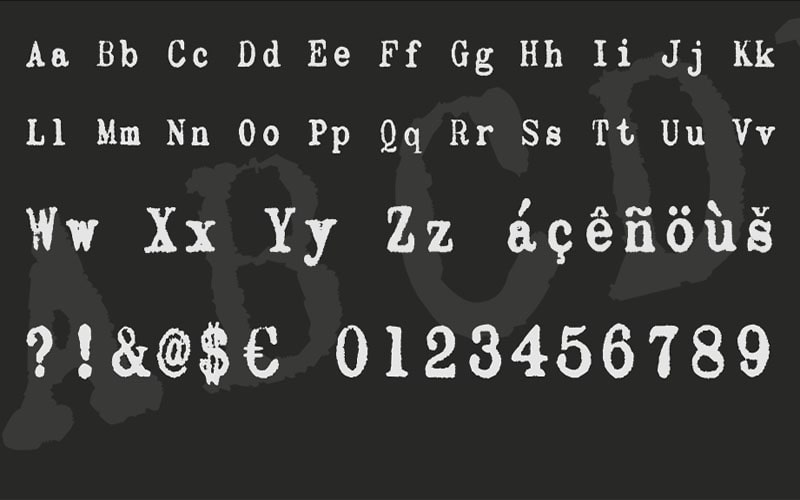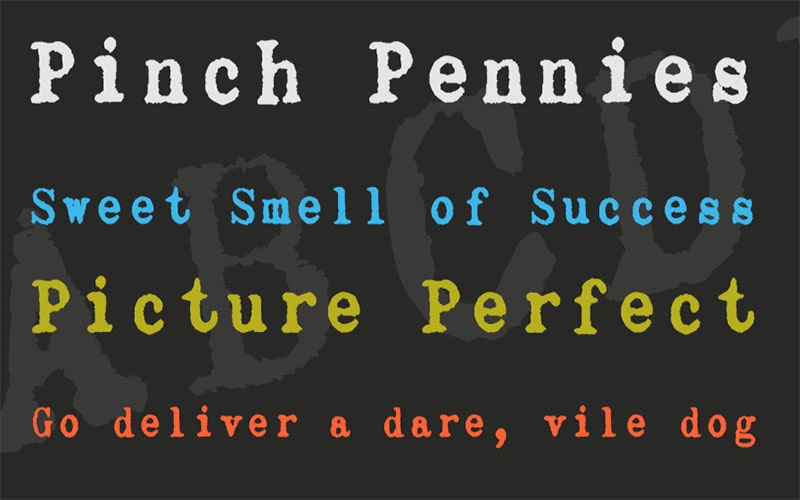
The Zai Olivetti Lettera 22 Typewriter Font is a unique typeface that pays homage to the classic Olivetti Lettera 22 typewriter, a symbol of mid-20th-century craftsmanship and design.
The font was created by a designer Tomasz Skowroński inspired by the iconic Olivetti Lettera 22 typewriter, known for its sleek design and exceptional functionality.
The designer sought to capture the essence of this classic typewriter, translating its mechanical elegance into a digital typeface that could be used in modern design while retaining a nostalgic feel.
This Font family includes several styles such as Regular, Bold, Italic, and bold italic, each reflecting the mechanical precision and vintage appeal of the original typewriter.
zai Olivetti Lettera 22 Typewriter Font
The regular style emulates the standard typeface of the Olivetti Lettera 22, perfect for body text and general usage. Provides a thicker, more pronounced version for headlines and emphasis.
When working on a vintage-inspired branding project, developing editorial content, or designing a website with a unique aesthetic, this font provides the perfect blend of nostalgia and functionality.